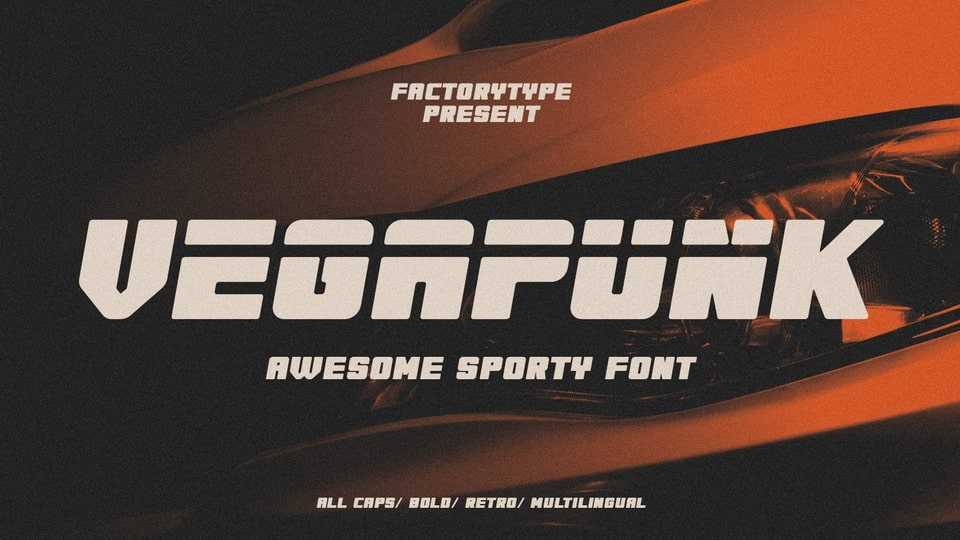
Download Vegapunk font, an awesome sporty typeface has unique cutouts, a dynamic slant, and gives the impression of power and speed. Vegapunk is ideal for fast-paced sports titles like auto racing, cycling, running sporting events, and automotive game logos and monograms.
Designer: Factory Type